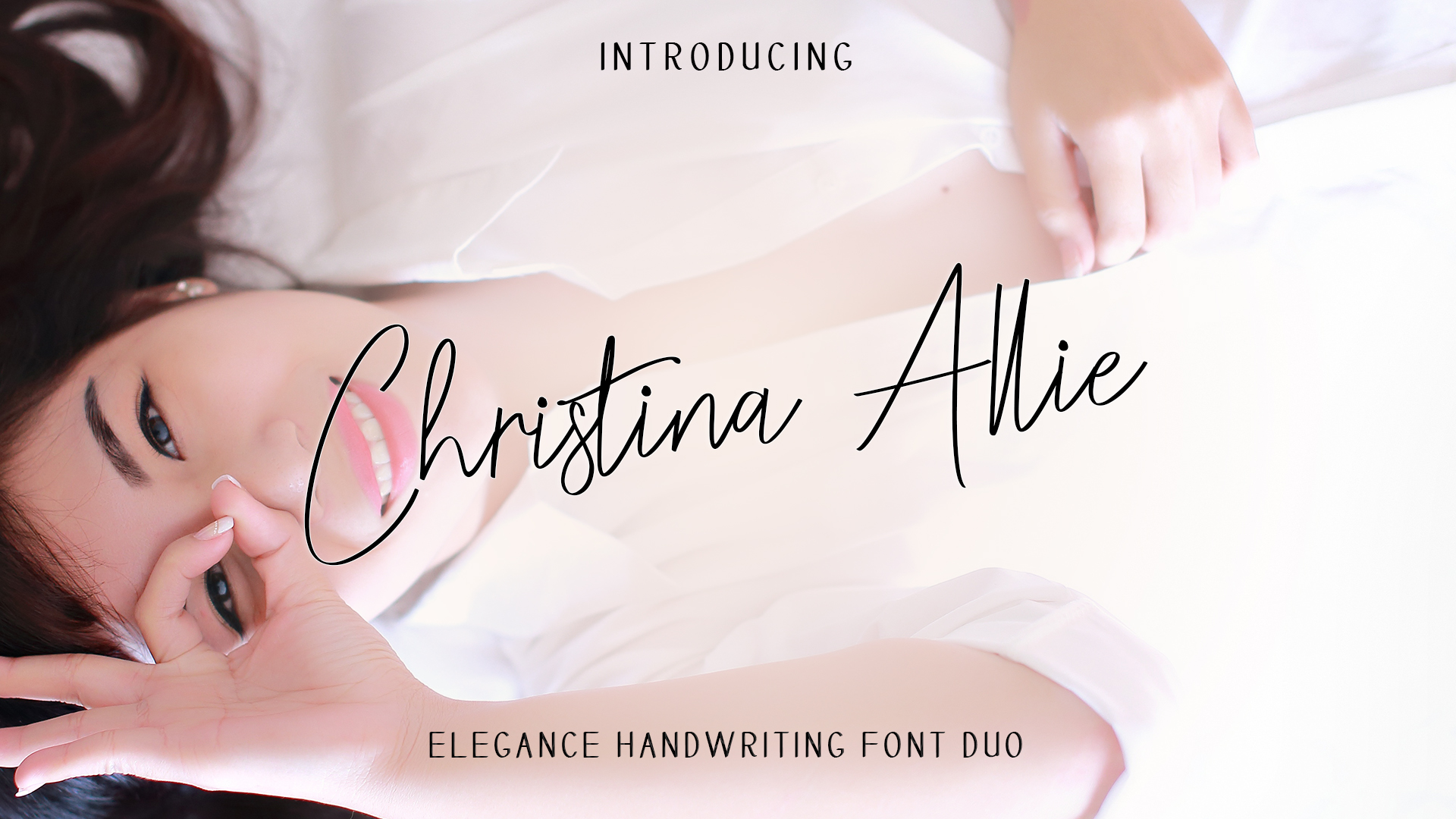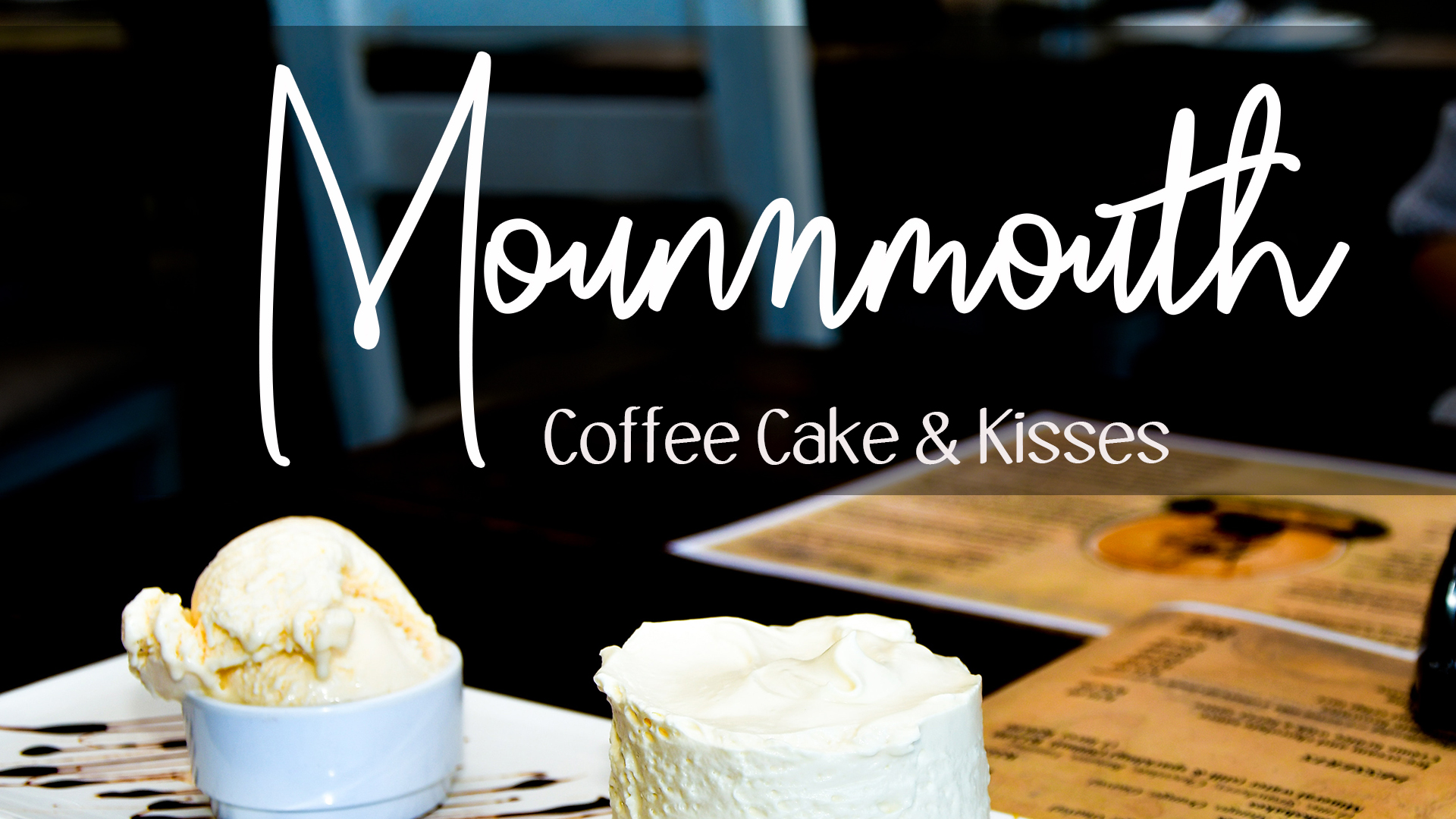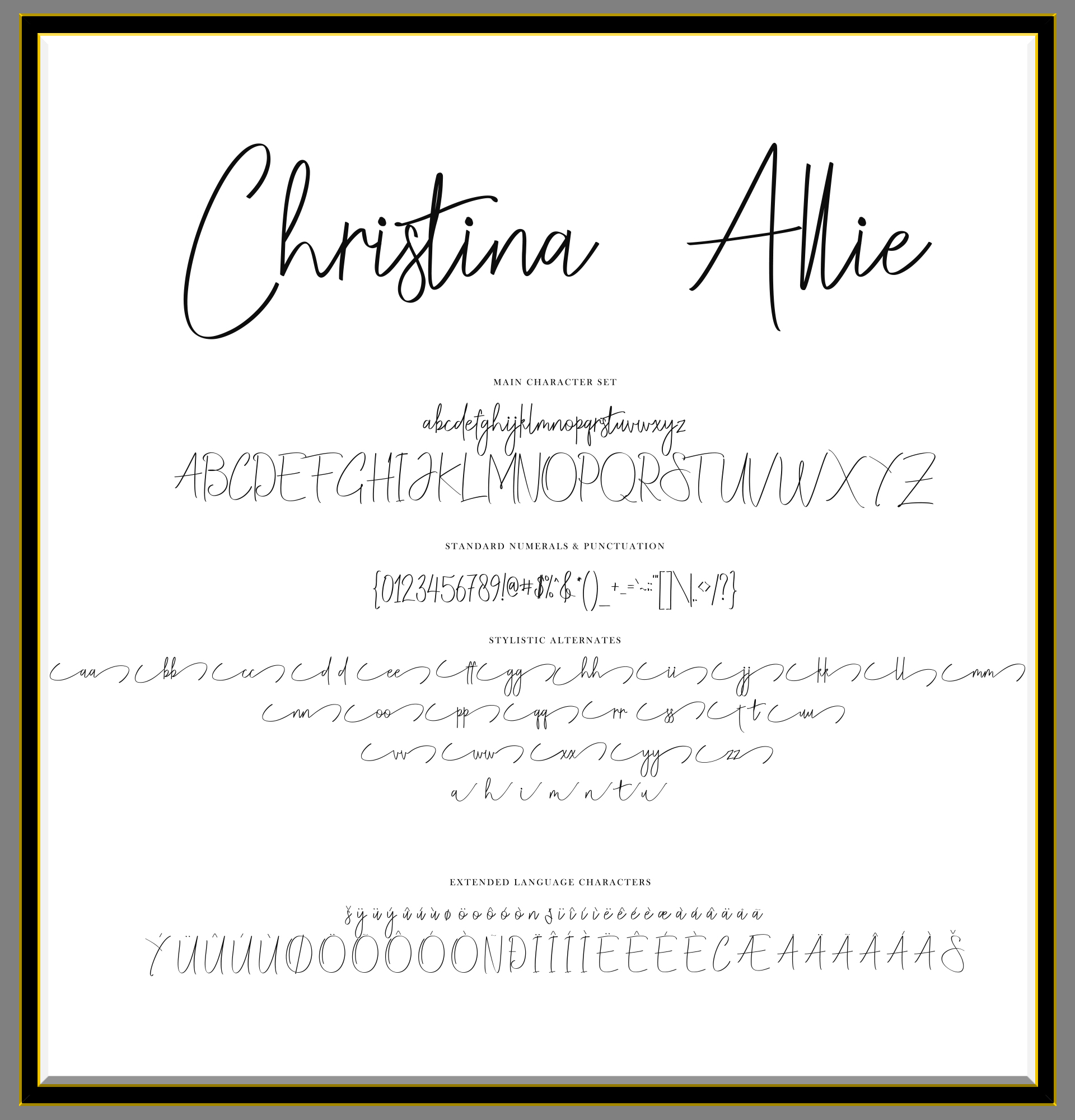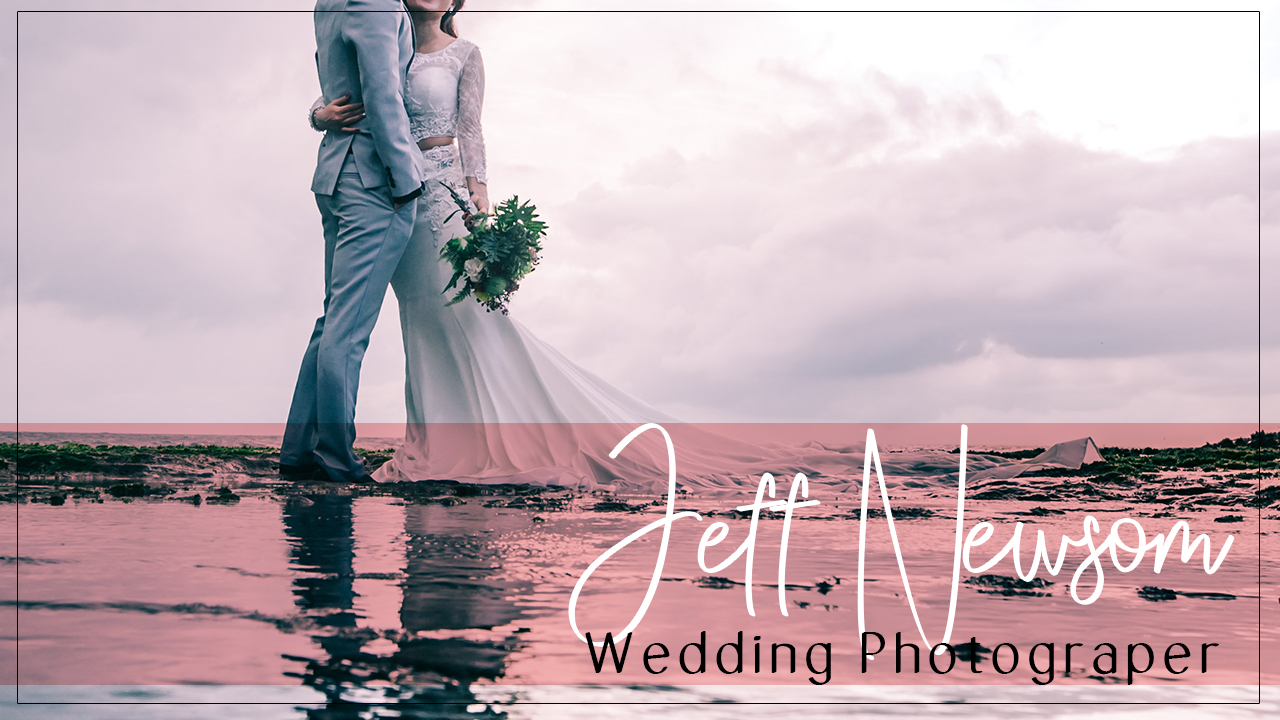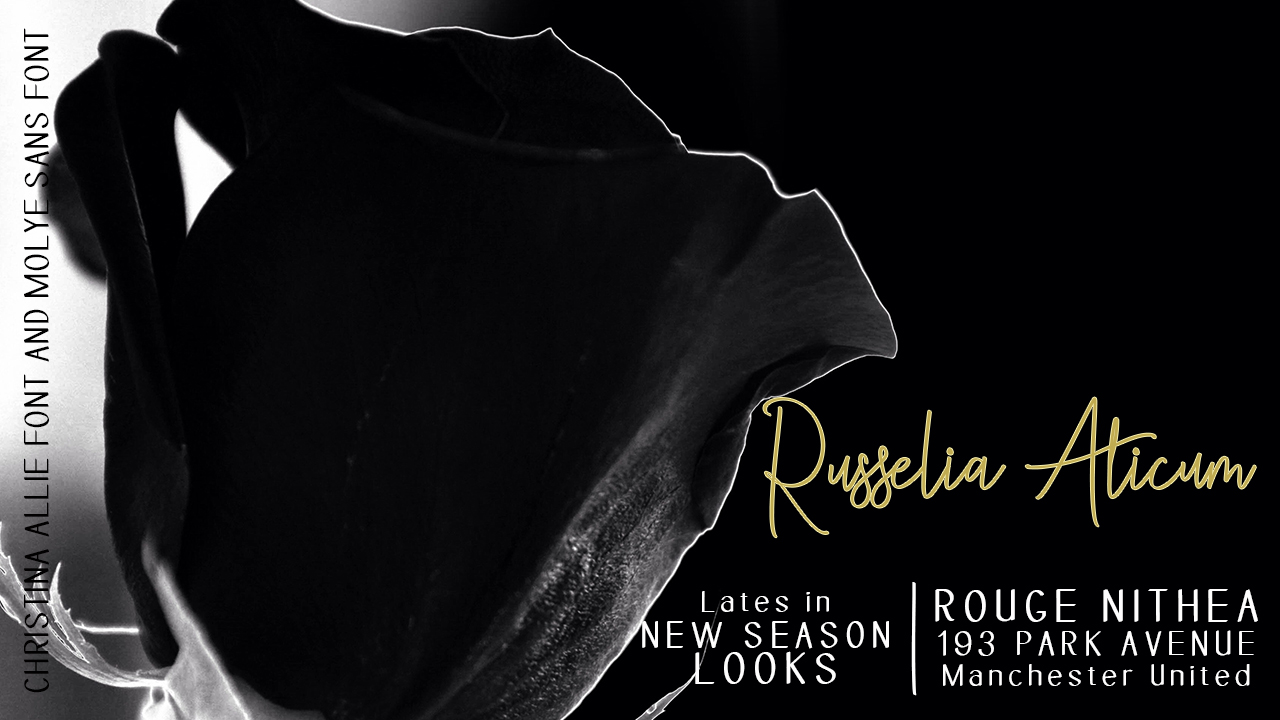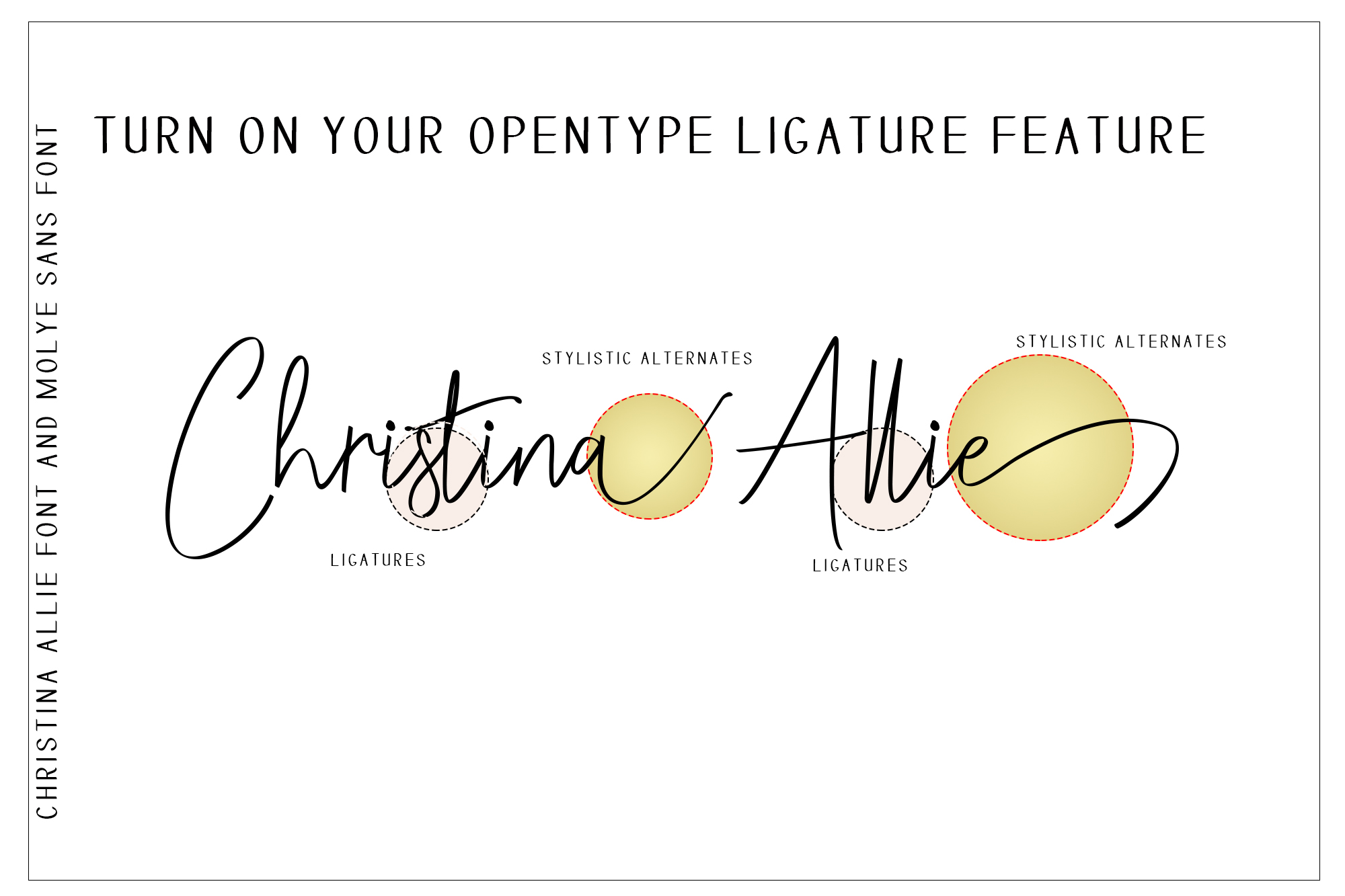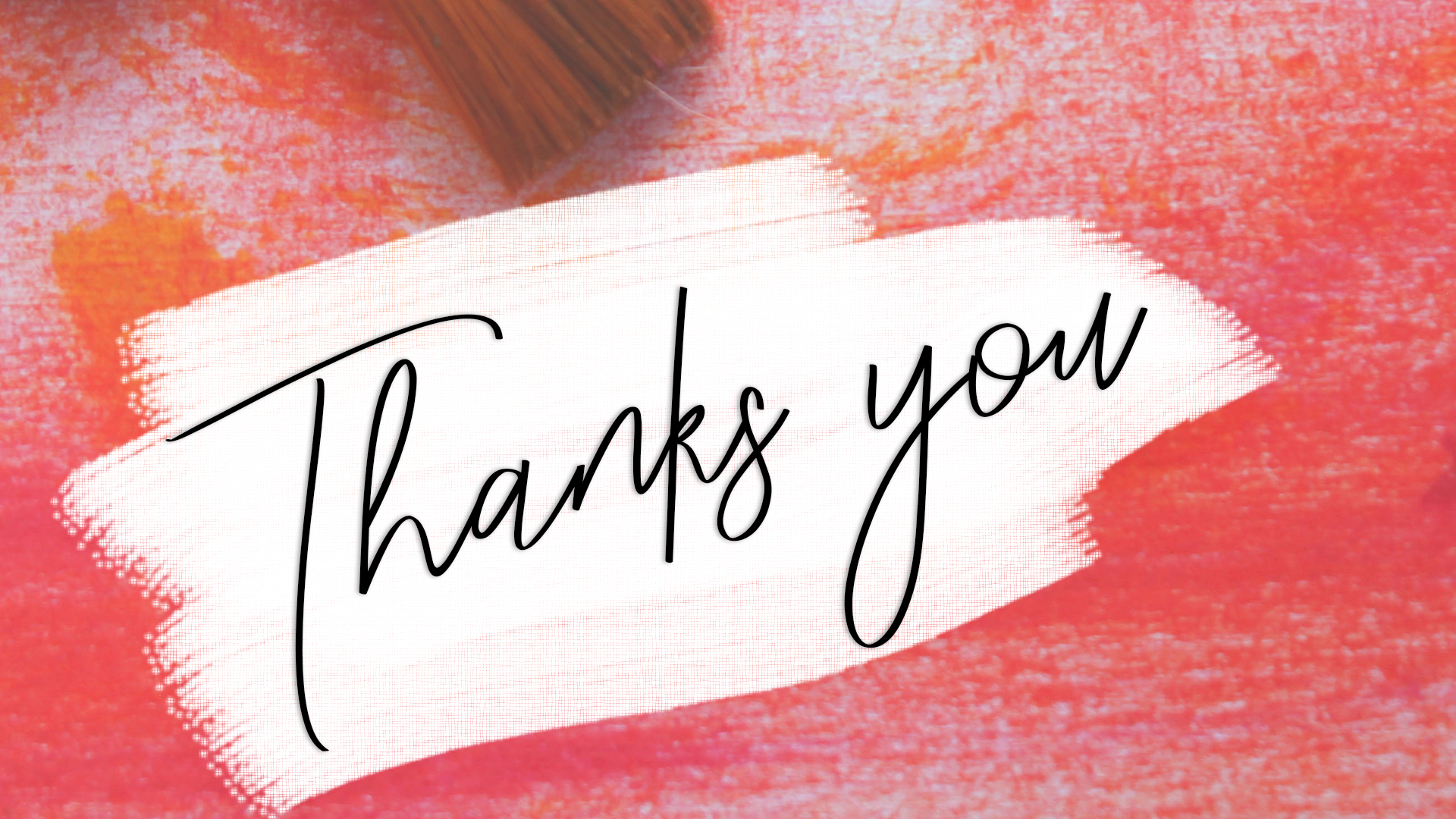
HomeScript FontsChristina Allie Font Script Fonts Christina Allie Font FacebookXPinterestWhatsApp Christina Allie Font Poster 2 Christina Allie Font Poster 3 Christina Allie Font Poster 4 Christina Allie Font Poster 5 Christina Allie Font Poster 6 Christina Allie Font Poster 7 About Christina Allie Font Christina Allie is an elegant handwritten font duo that comes packed with alternates and ligatures. DOWNLOAD NOW People also explored Amsterdam Font Winter Hunt Font Early Morning Font Simple Planer Font Joseph Sophia Sonettons Font Saturday Hustle Font Malibu Holiday Duo Font Mental Rounded Font 268 0 TagsChristina Allie Font Previous articleBerlin Script FontNext articleChocolate Heart Font LEAVE A REPLY Cancel reply Comment: Please enter your comment! Name:* Please enter your name here Email:* You have entered an incorrect email address! Please enter your email address here Website: Save my name, email, and website in this browser for the next time I comment. Personal Use Free Comic Caps Personal Use Free Read more about this font Breakaway Personal Use Free Read more about this font Kredit Personal Use Free Read more about this font Avatarock Personal Use Free Read more about this font BLOG Best Fonts for YouTube Videos: Make Your Thumbnails Stand Out Best Fonts for YouTube Videos: Make Your Thumbnails Stand Out Choosing the right font can make a massive difference in how your YouTube videos perform.... Fonts That Capture the Spirit of New York City Where to Buy American Fonts Online in 2024 Using Fonts in Digital Marketing: Tips to Strengthen Your Brand Identity